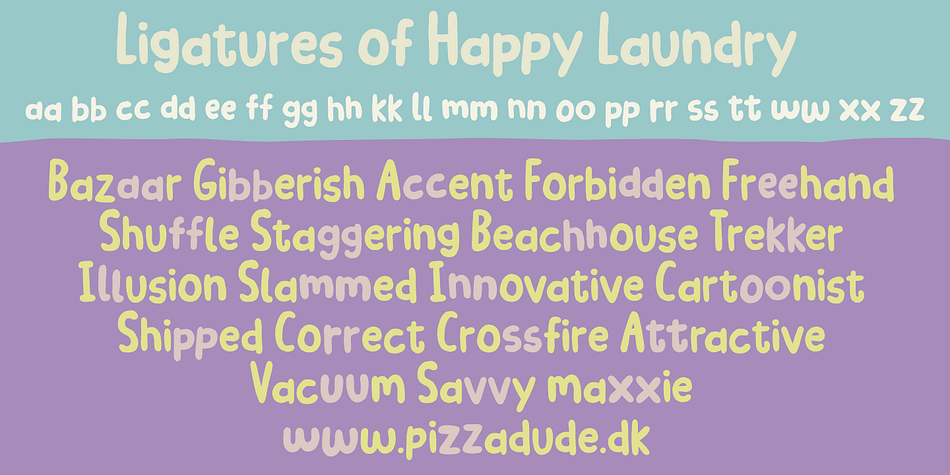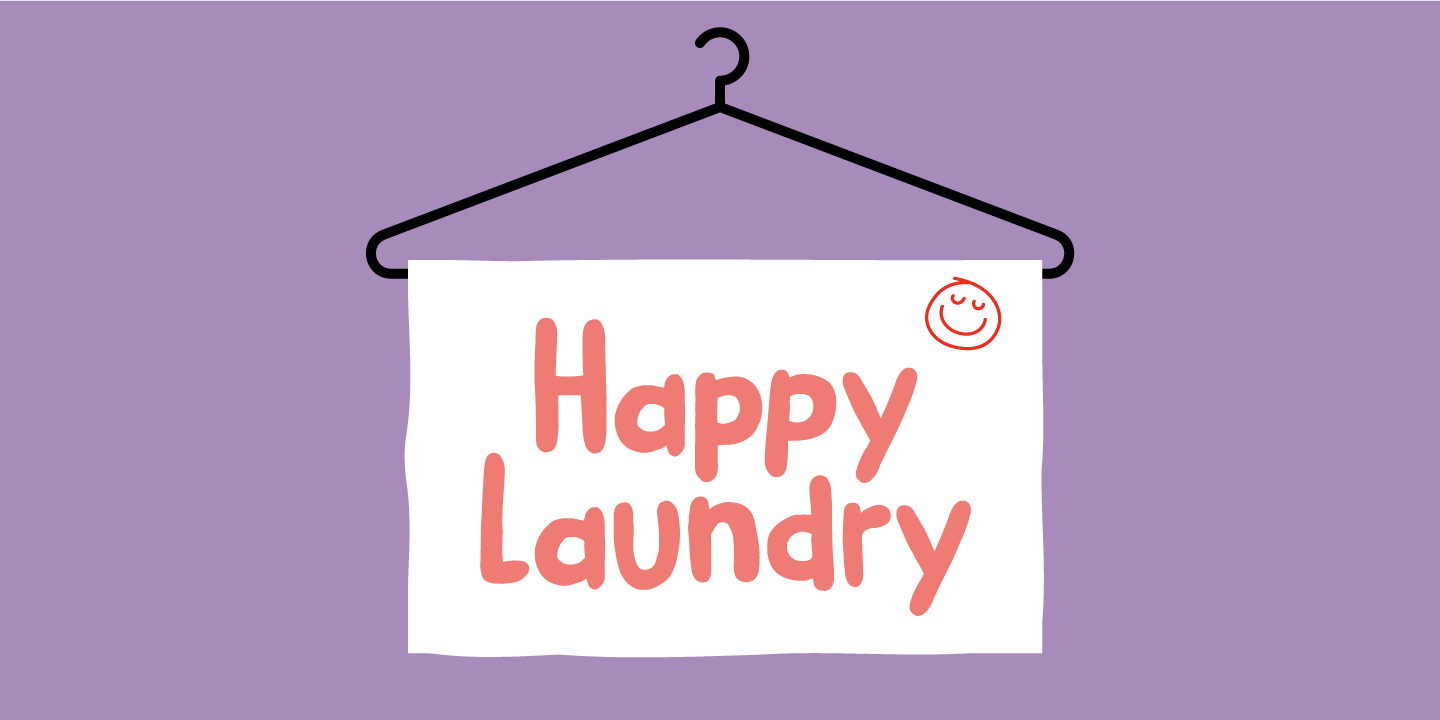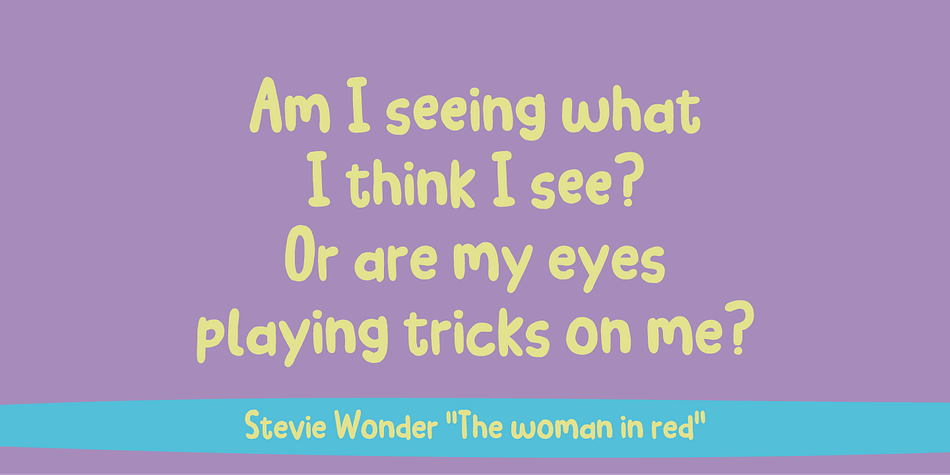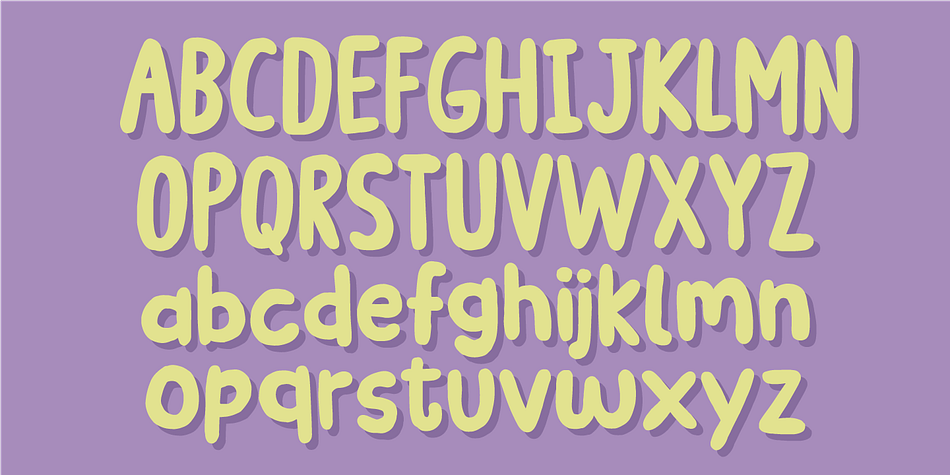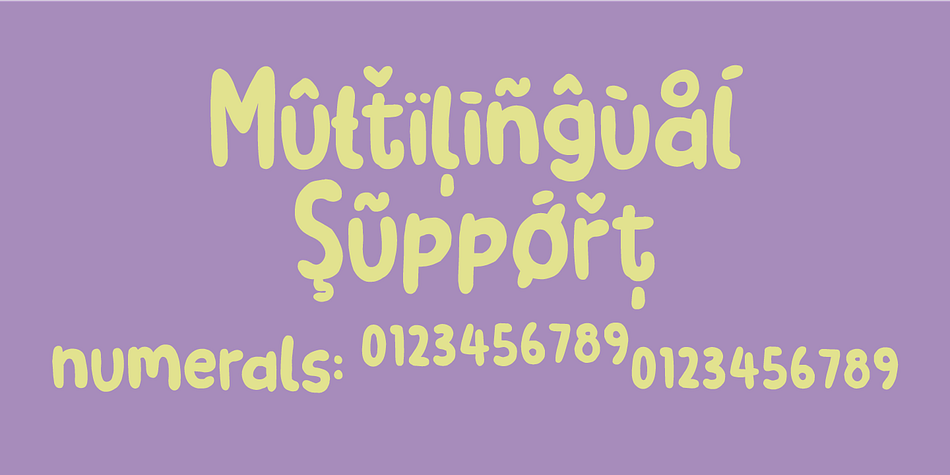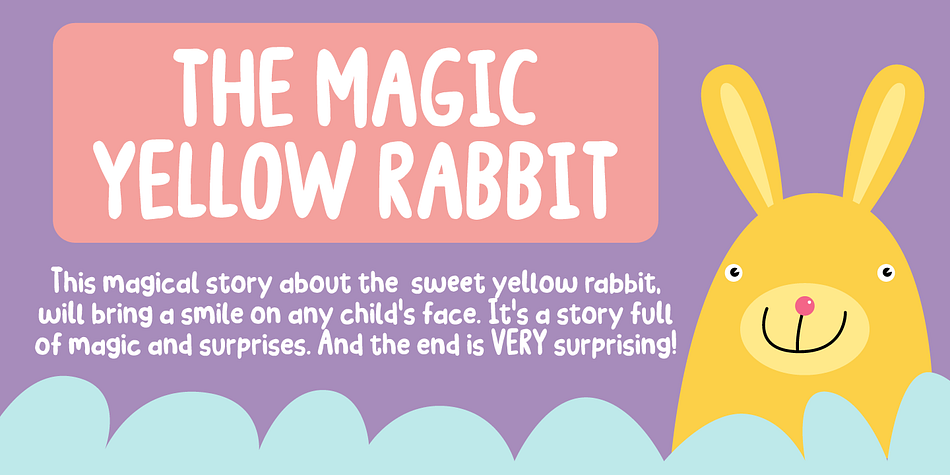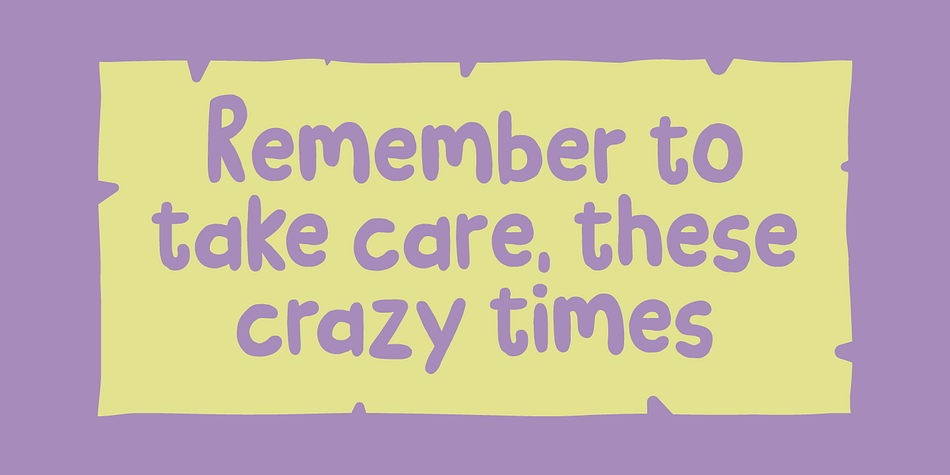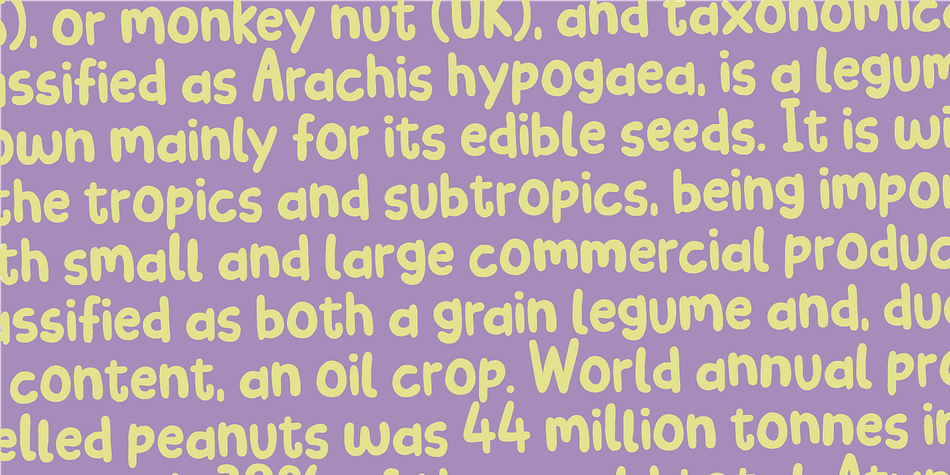
Designed by Jakob Fischer, Happy Laundry is a hand display and hand drawn font family. This typeface has two styles and was published by Pizzadude.dk.
Happy Laundry is my laid back happy kids font. Smooth and yet rough here and there. I’d say that Happy Laundry would suit your birthday invitations, posters, packaging and other products perfectly! Enjoy! :)